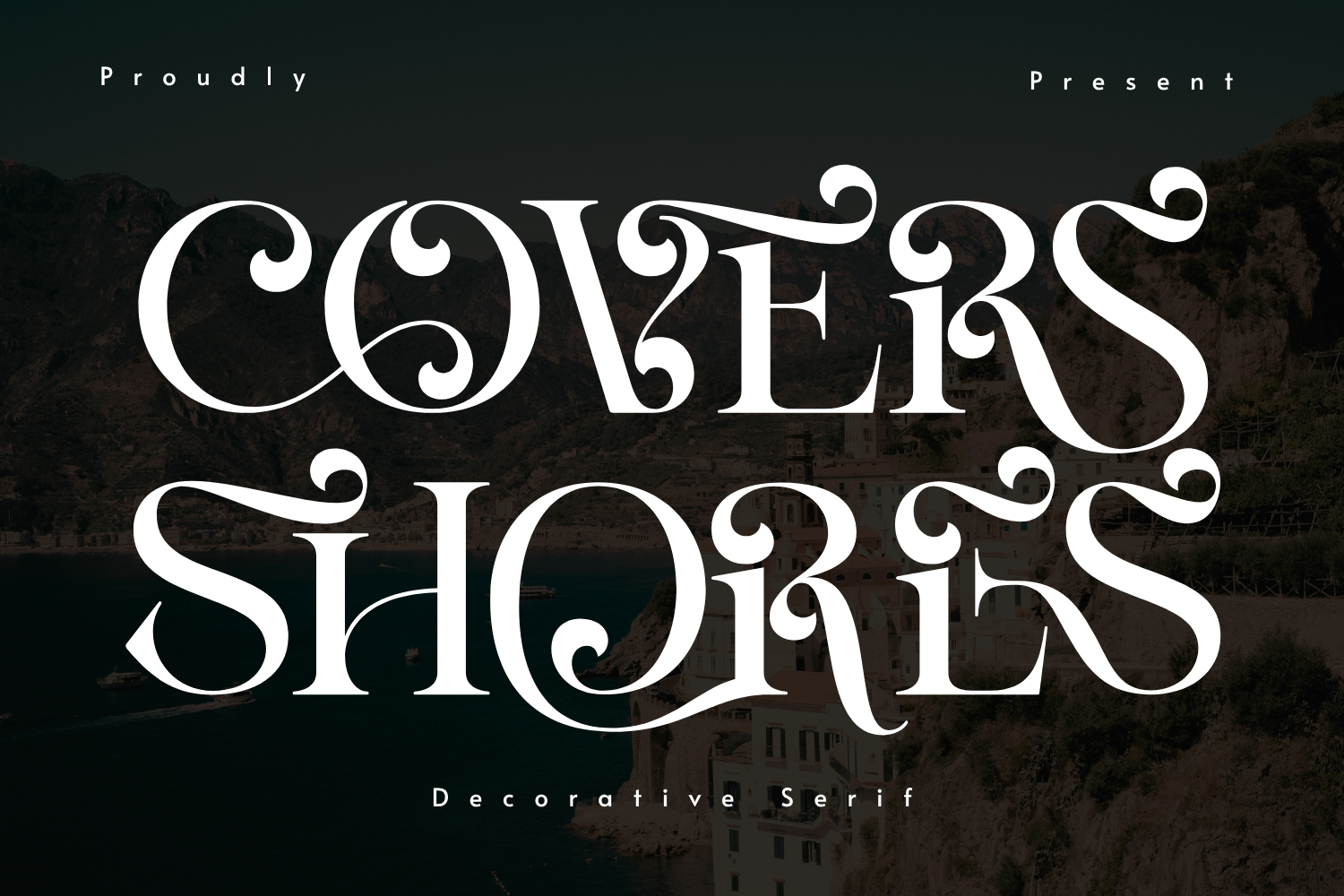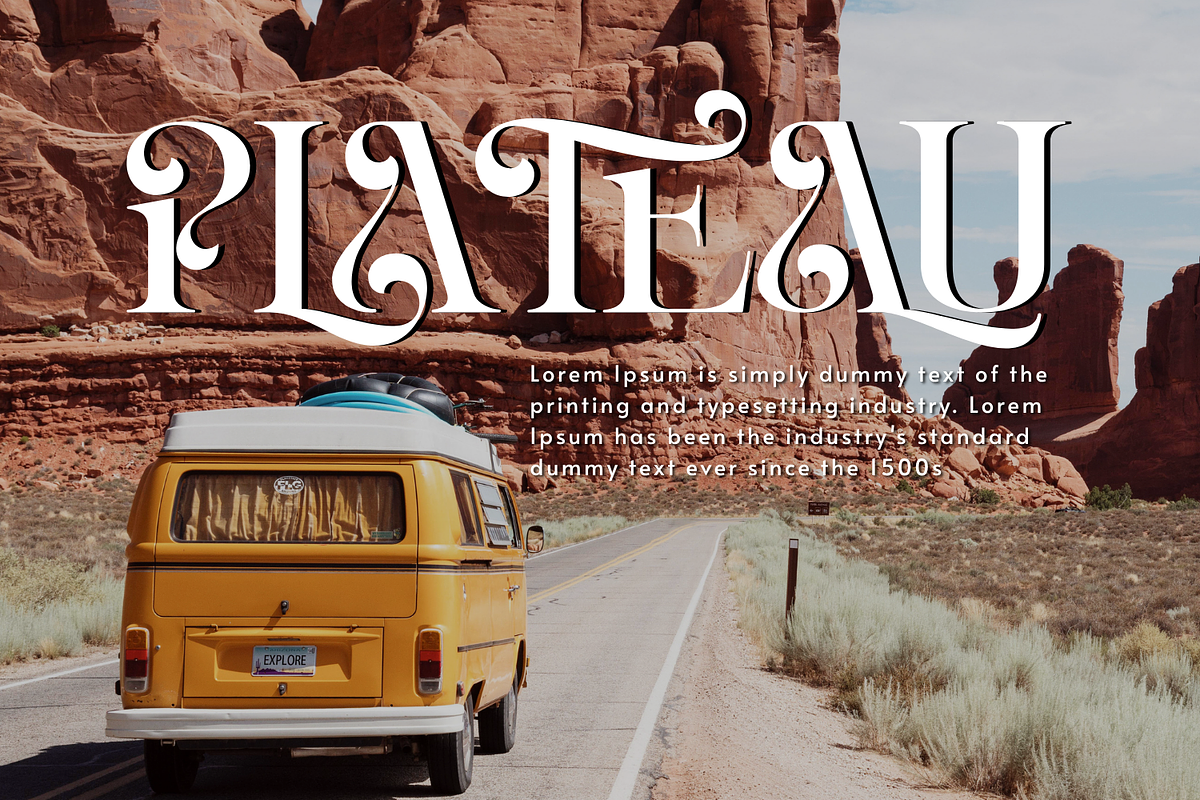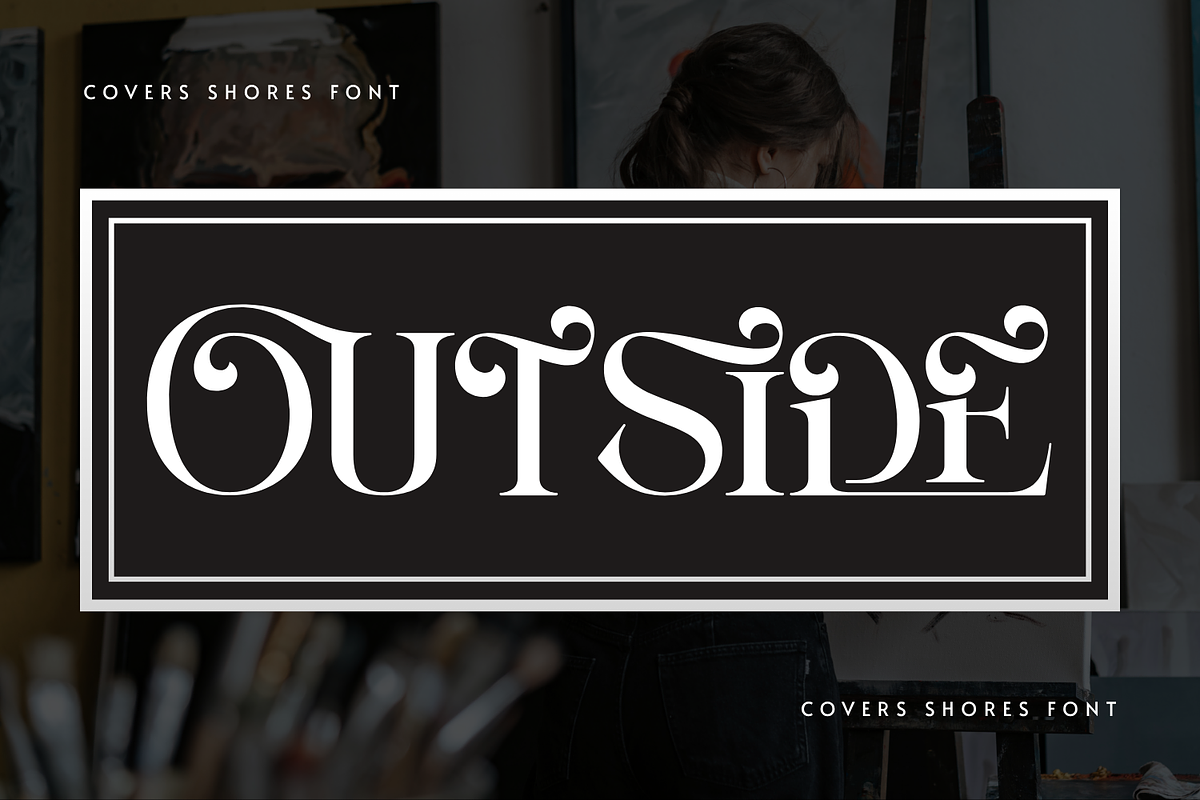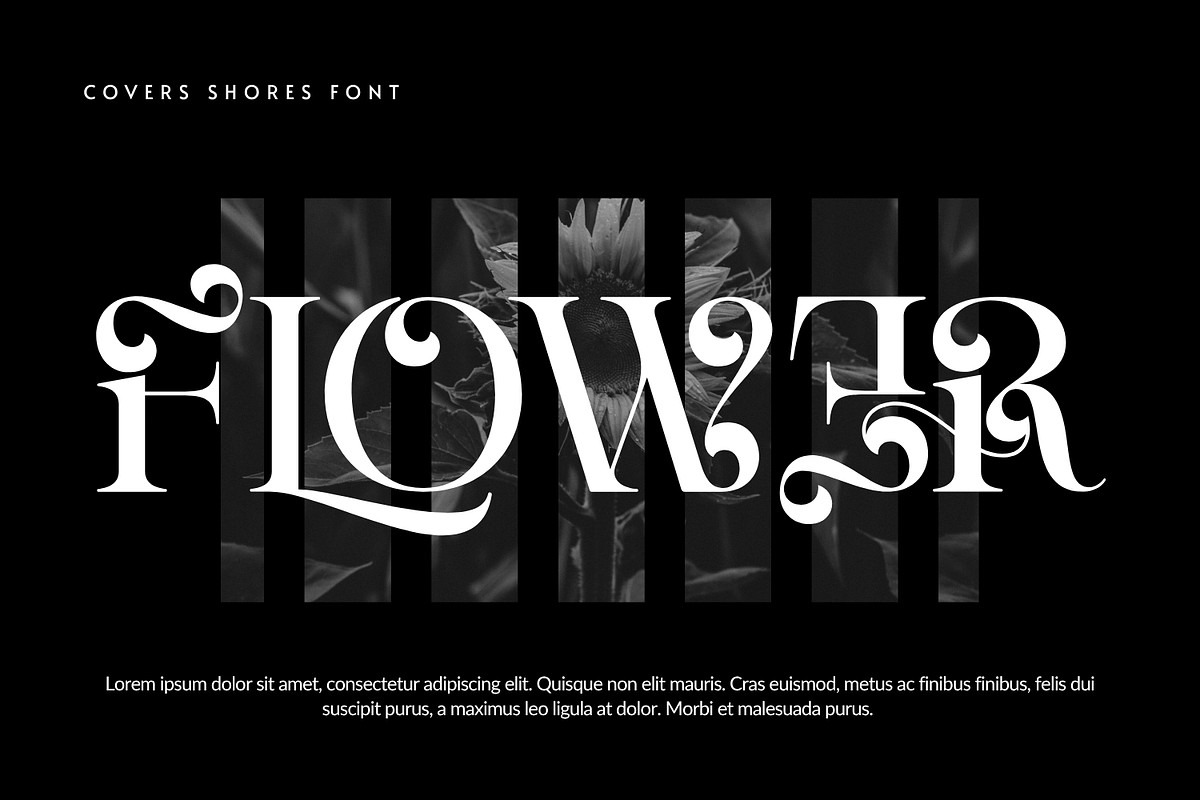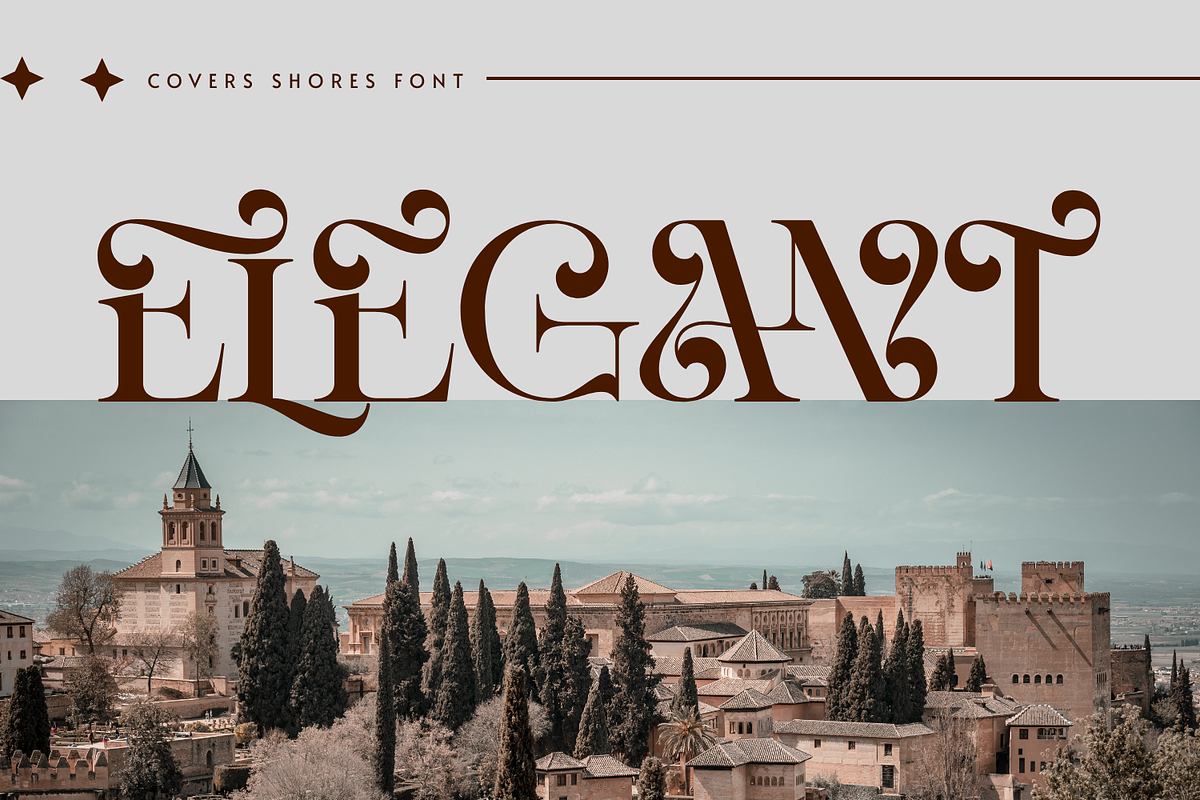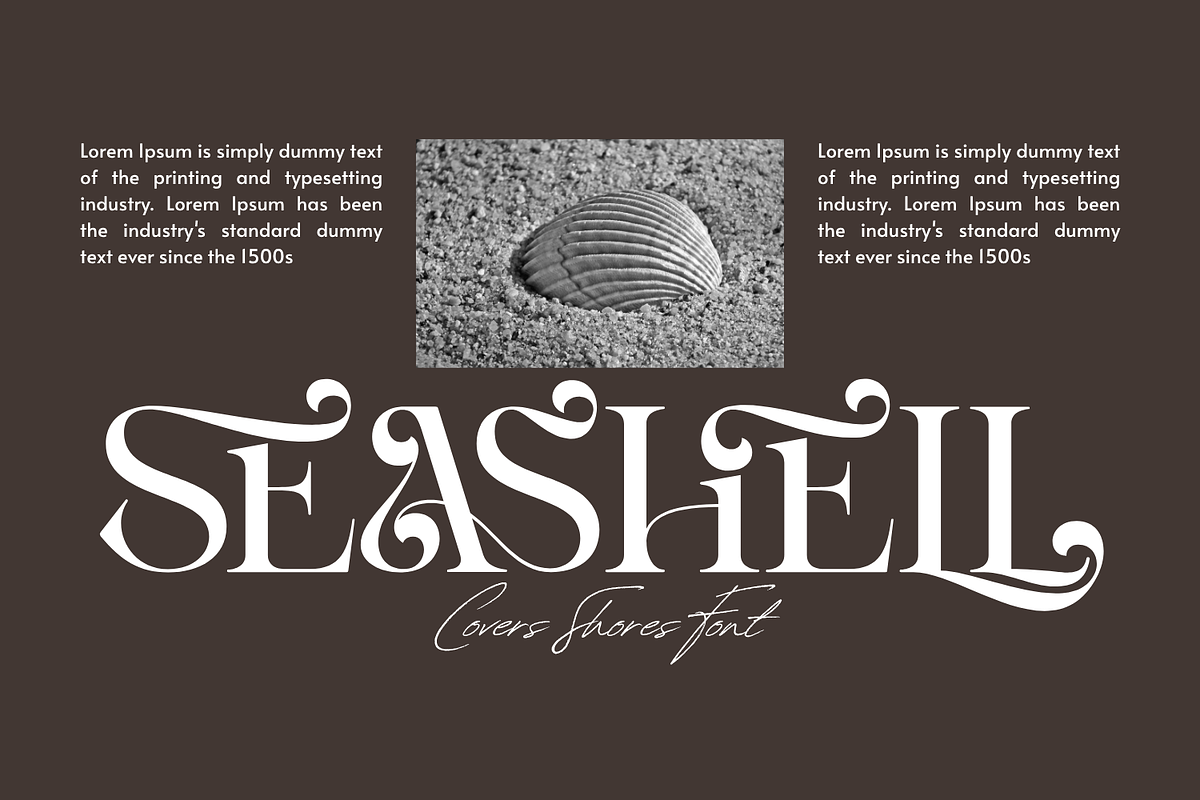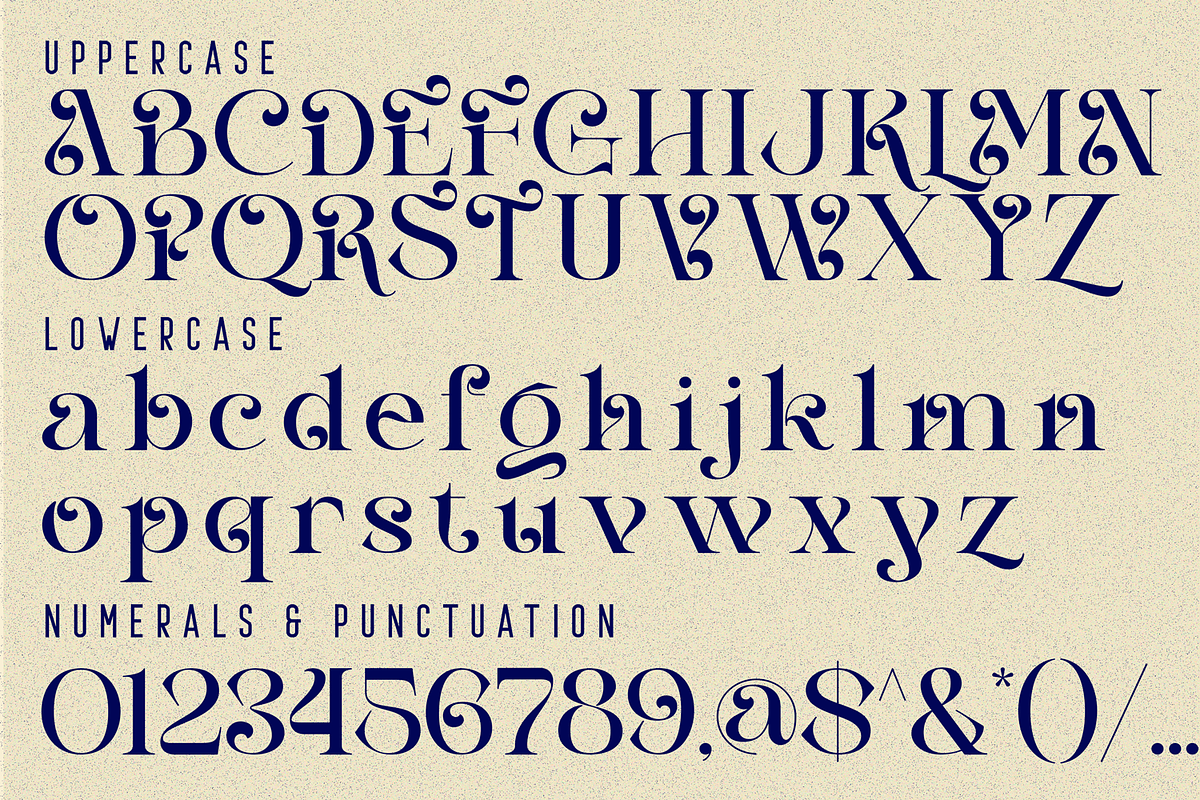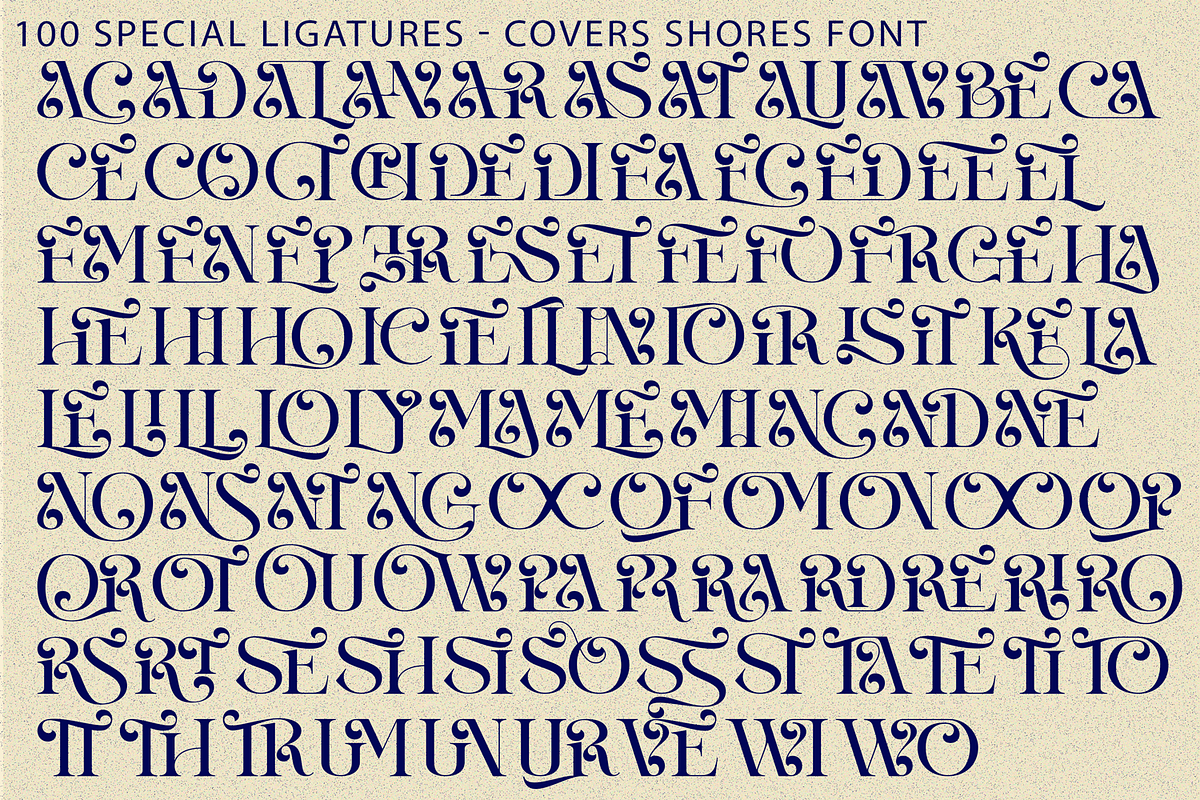
COVERS SHORES - ROMANTIC FONT
COVERS SHORES - ROMANTIC FONT is an ornamental calligraphic serif display font designed with graceful curves, dramatic contrast, and expressive decorative swashes. Its elegant letterforms combine classic serif structure with flowing calligraphic movement, creating a romantic and luxurious visual rhythm. Perfect for wedding invitations, boutique branding, resort logos, beauty packaging, editorial headlines, and premium visual identities, COVERS SHORES adds charm, sophistication, and artistic personality to every design.
🔤Features:
Uppercase & Lowercase Letters
Around 100 Special Ligatures & Alternates
Accented Characters for multilingual support
🔤About 100 ligatures combined with Stylistic Alternates Font:
AC AD AL AN AR AS AT AU AV BE CA CE CH CO CT DE DI EA EC ED EE EL EM EN EP ER ES ET FE FO FR GE HA HE HI HO IE IC IL IN IO IR IS IT JU KE LA LE LI LL LO LY MA ME MI NC ND NE NG NO NT NS OC OF OM ON OO OP OR OT OU OW PA PR RA RD RE RI RO RS RT SE SH SI SO SS ST TA TE TH TI TO TR TT UM UN UR VE WI WO